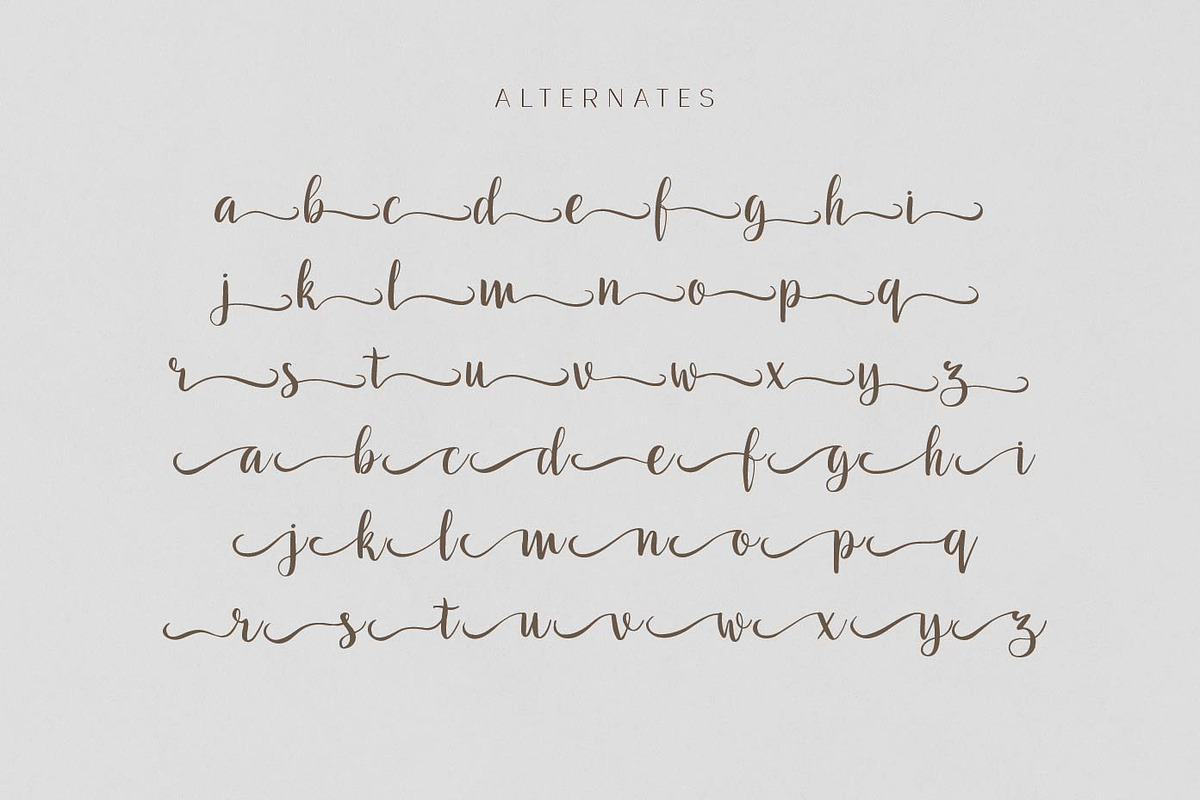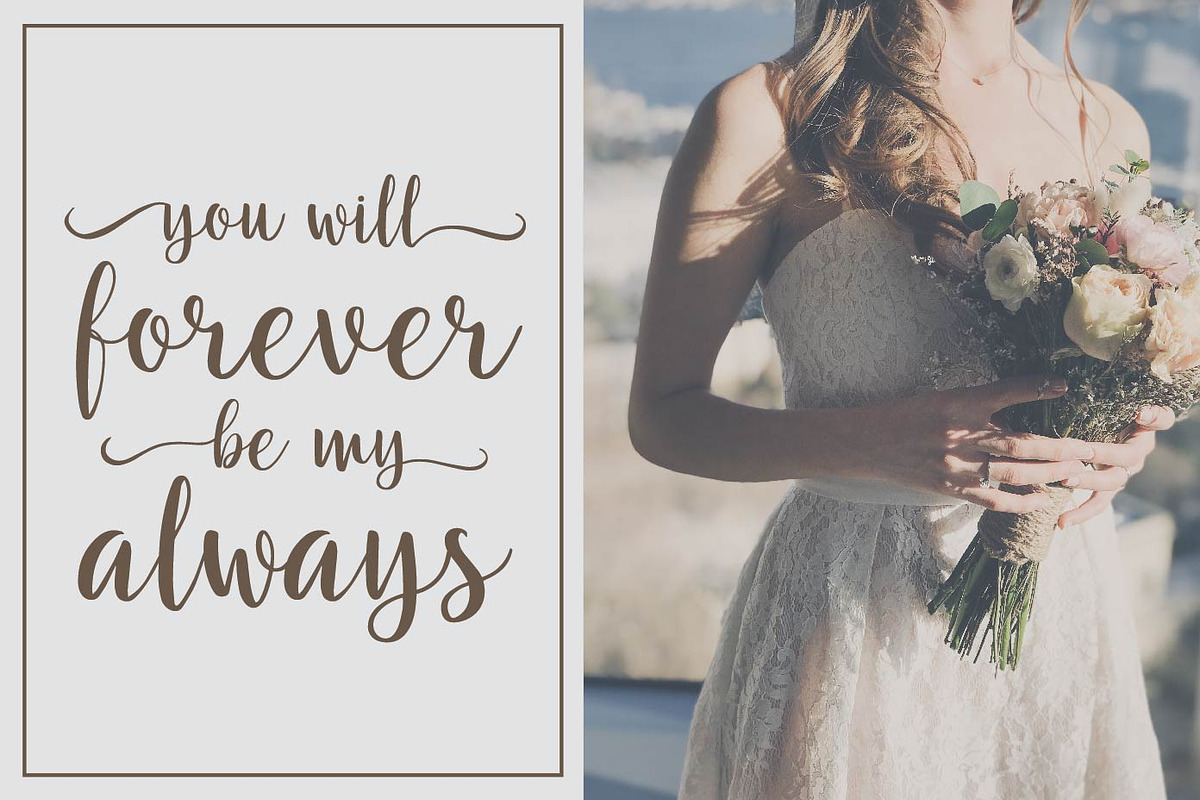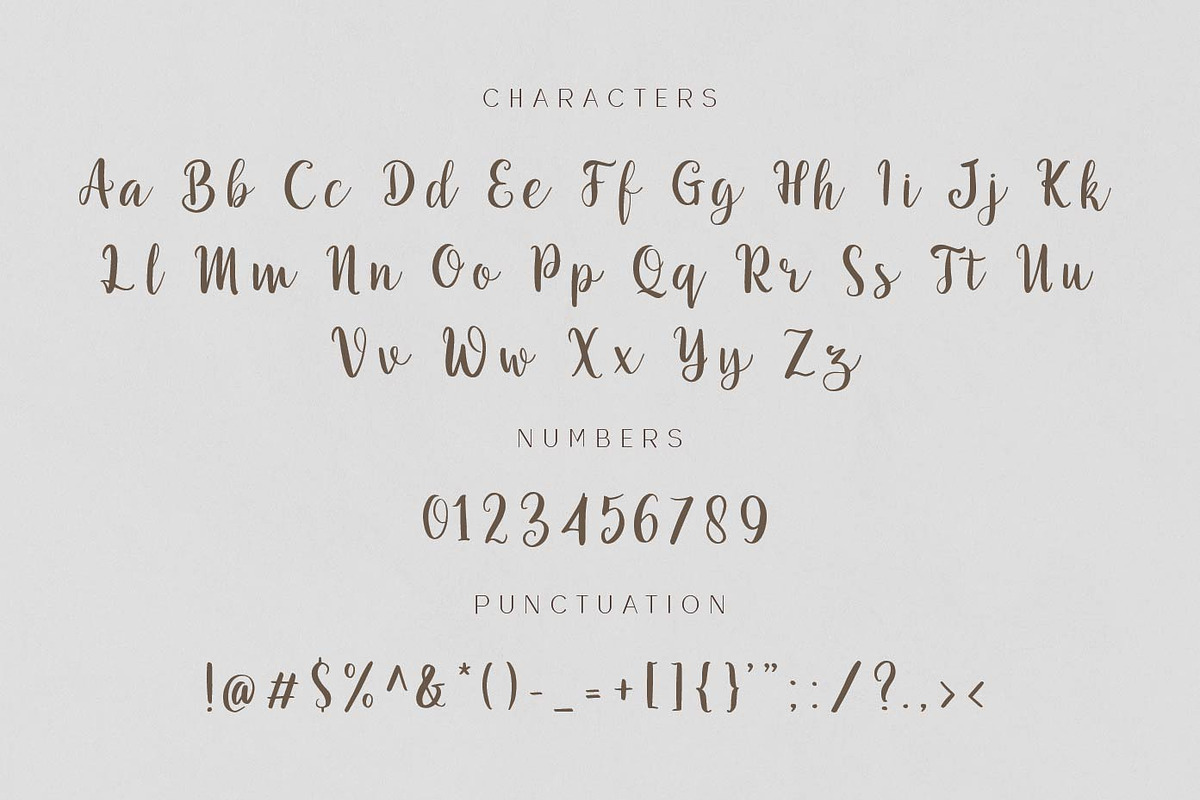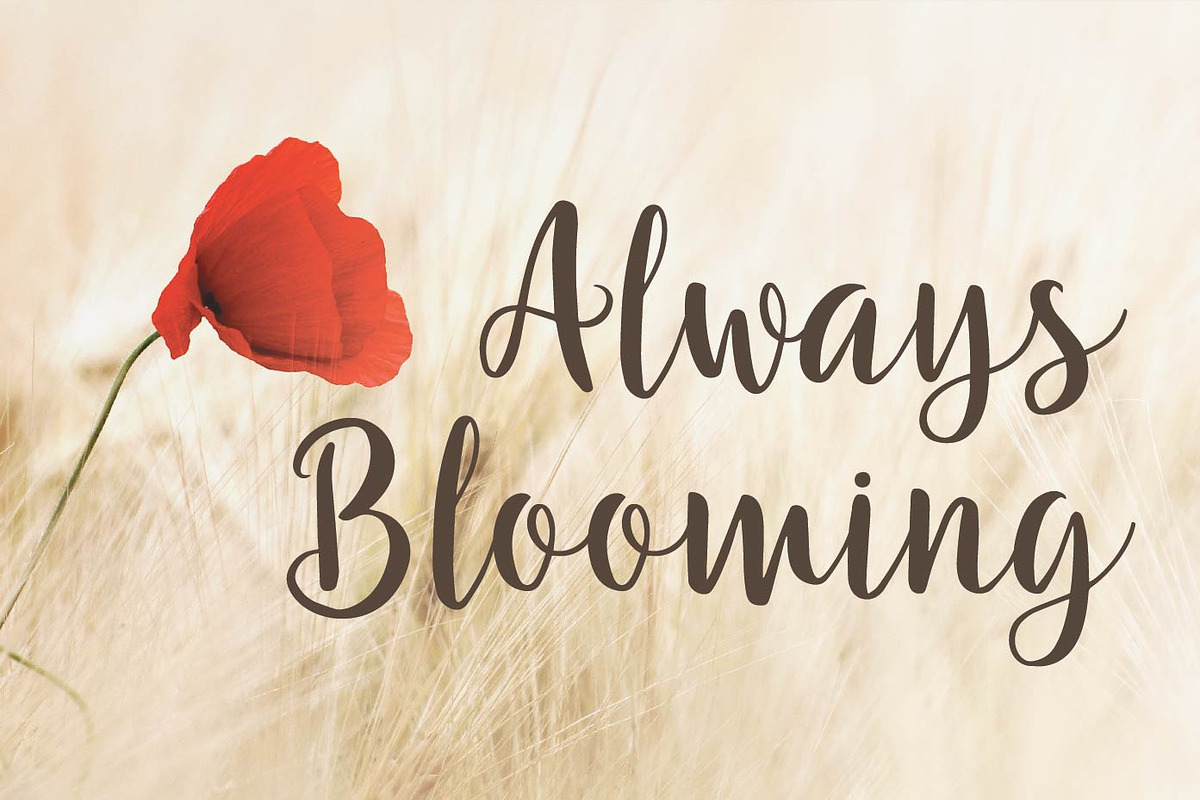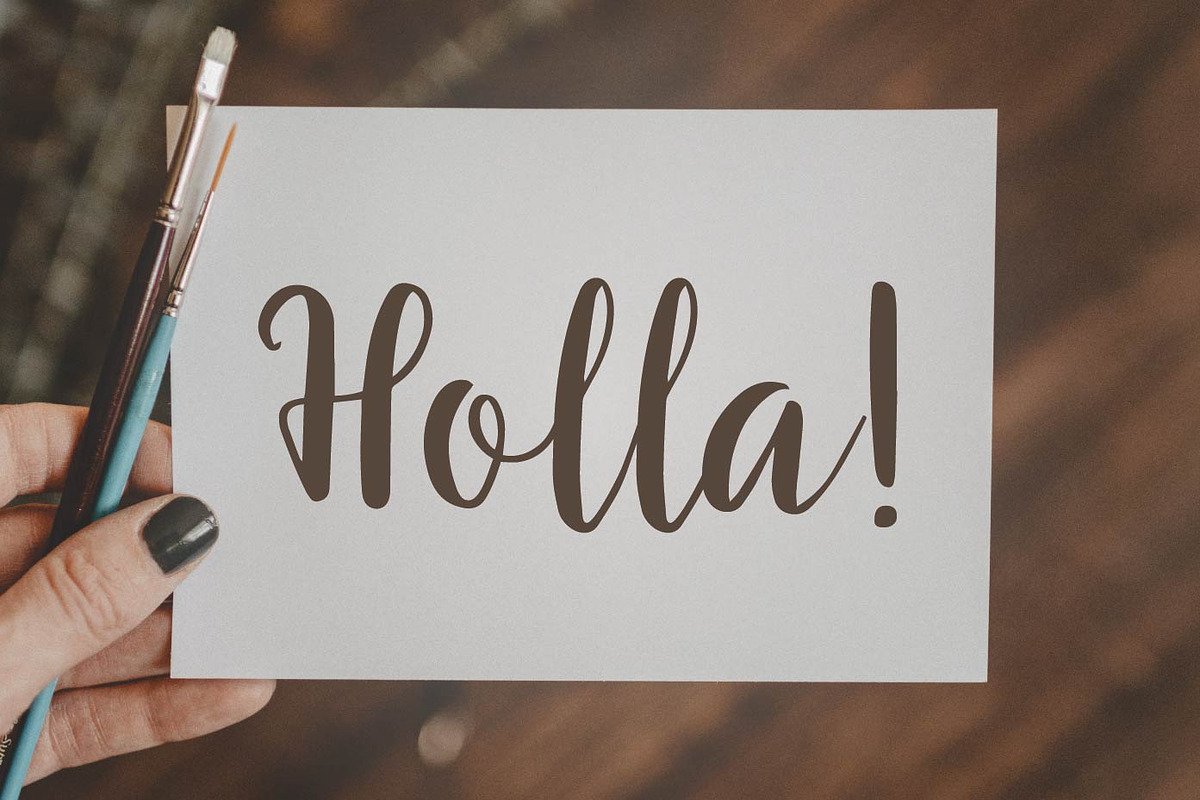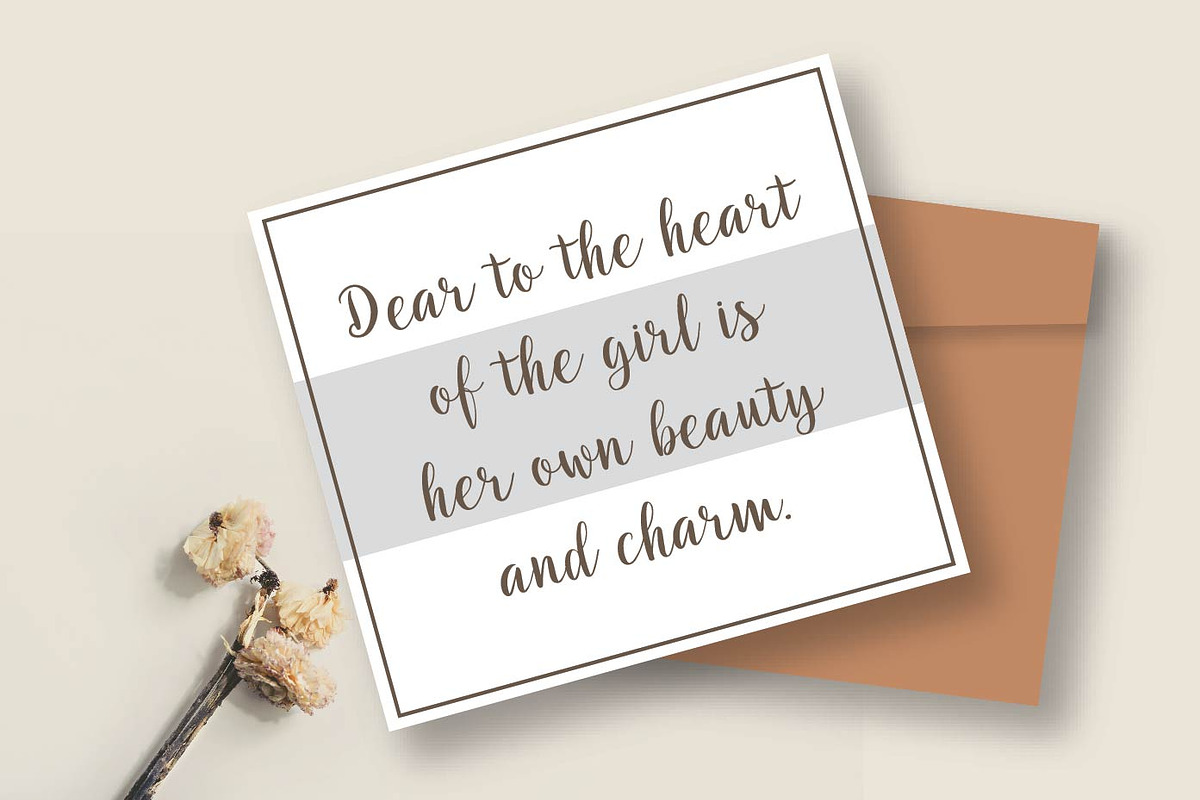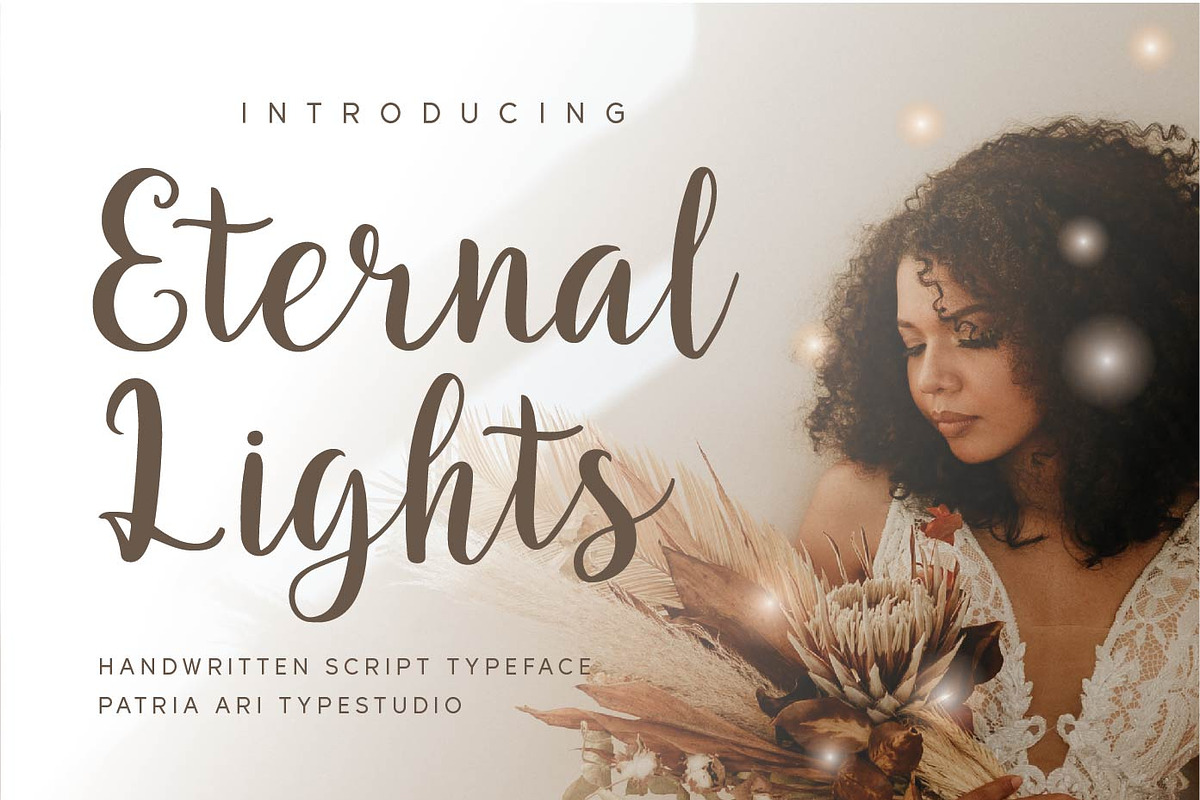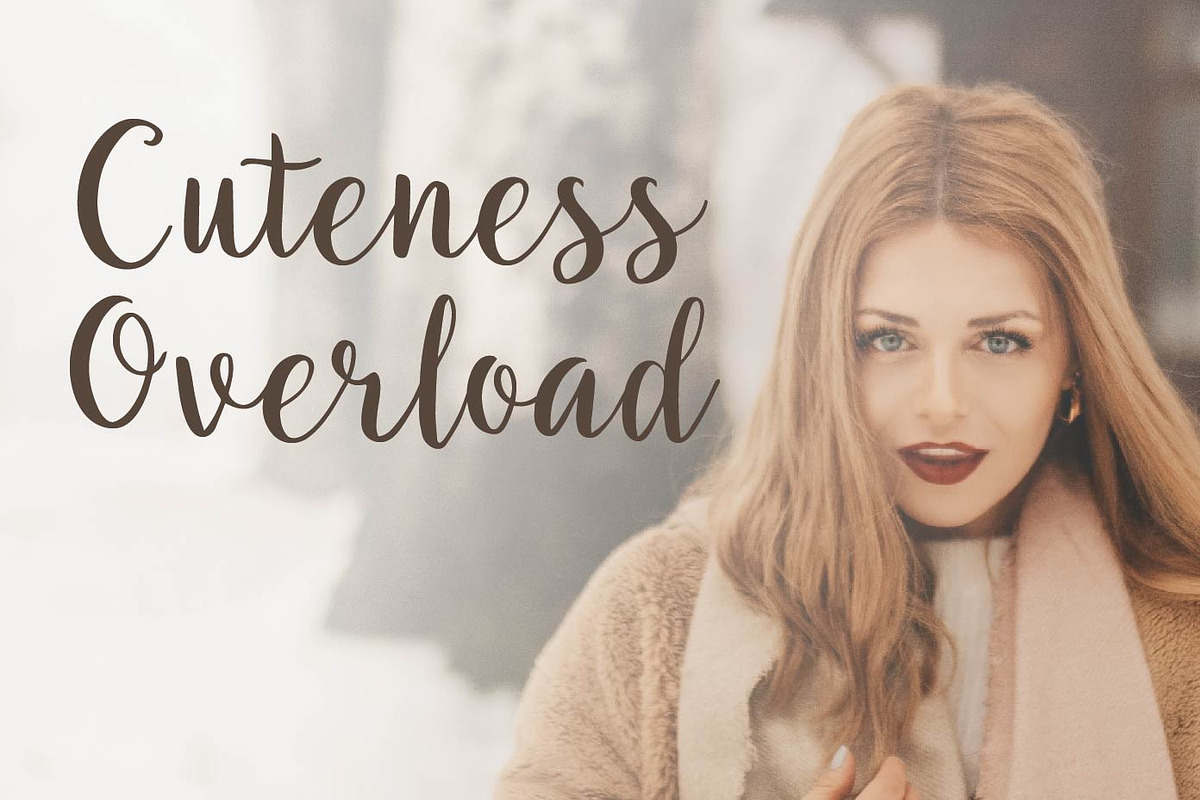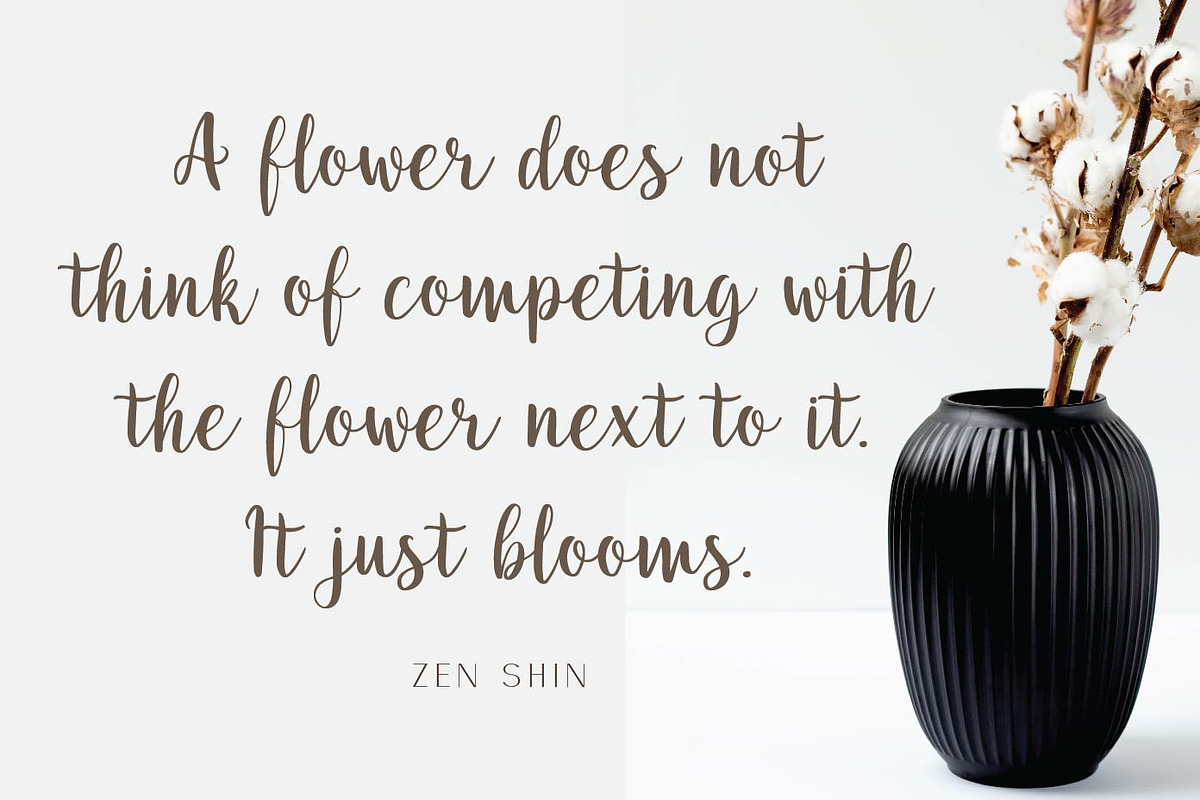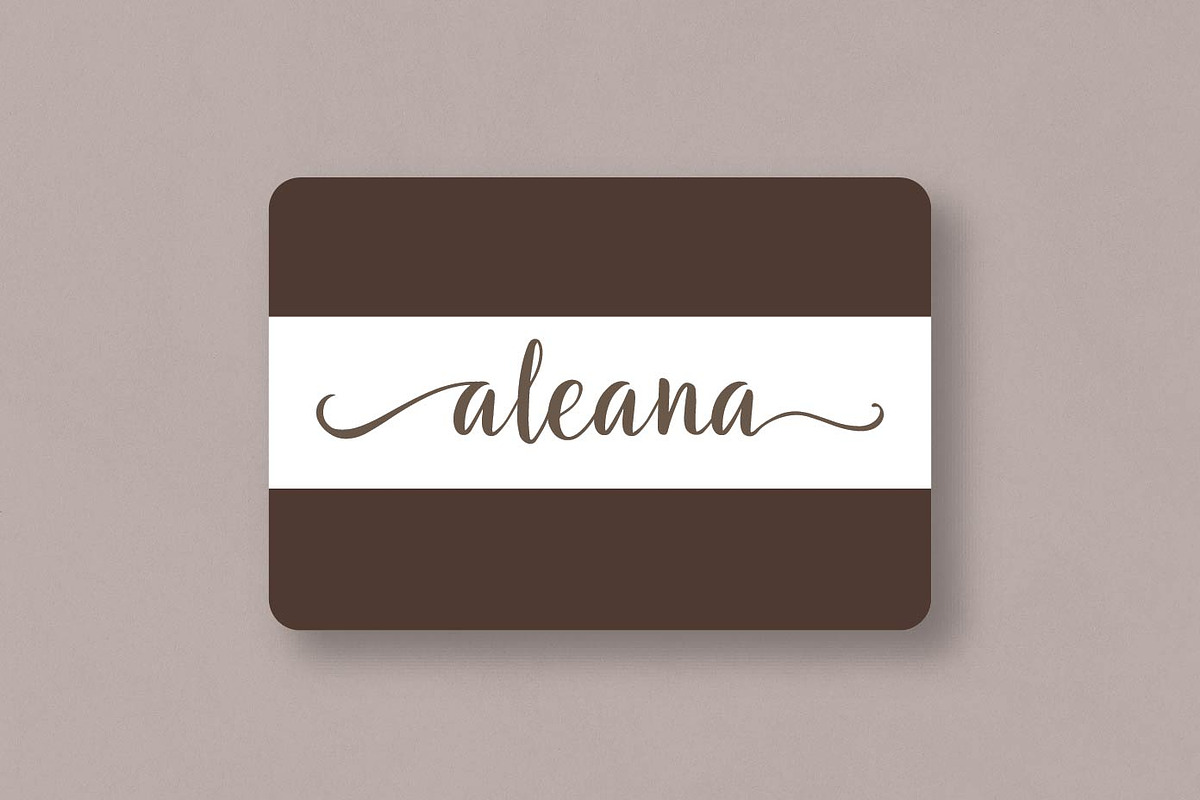
Eternal Lights
Eternal Lights is a beauty script typeface with cute alternative glyphs.
Eternal Lights is perfect for branding projects, logo, wedding invitation, social media posts, advertisements, product packaging, product designs, label, wedding invitation, greeting cards, photography, watermark, invitation, stationery and any projects that need handwriting taste.
Fonts featured :
Uppercase Lowercase Numbers Punctuation & symbols Accented characters Alternate glyphs